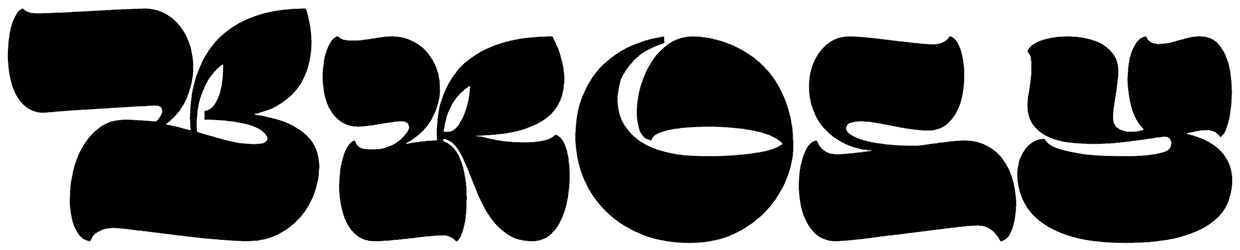
Broly Font
Are you looking for a decorative font that brings beauty while writing content? So check out Broly. This groovy font is inspired by nature and provides you with playful and psychedelic letters. If you want to introduce your project as a unique brand, this fancy font is a good choice where legibility is optional.
The decorative mode has made the lack of small letters unimportant, and it still appears very powerful in the form of posters, logos, and brochures.